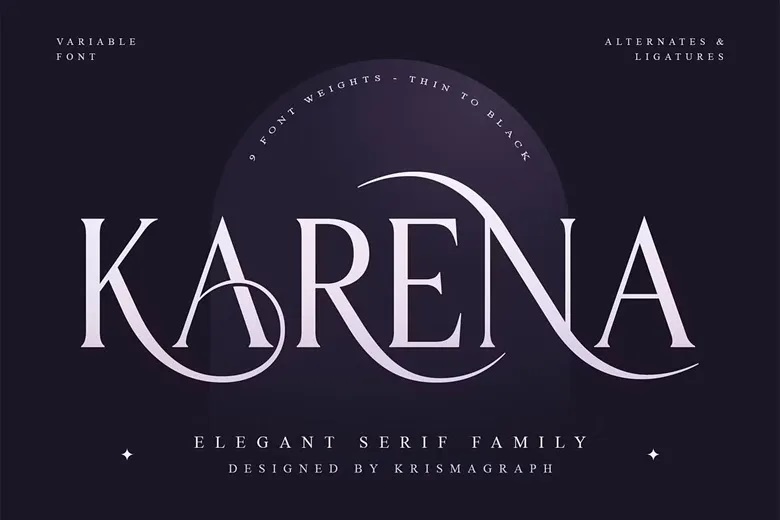
Karena Font
Karena is a beautiful serif typeface family created to offer both exotic flair and timeless sophistication to your crafts. With graceful curves, polished letterforms and high-end detailing, it blends contemporary minimalism with classic elegance. This makes it great for both editorial and display use. It features nine weights from Black to Thin along with a full set of ligatures and alternates.
This gives creatives the flexibility to design truly distinct compositions. Its thoughtful balance of subtle refinement and contrast makes it a perfect choice for magazine titles, branding, invitations, logos, packaging and fashion service projects.
Karena Serif Font